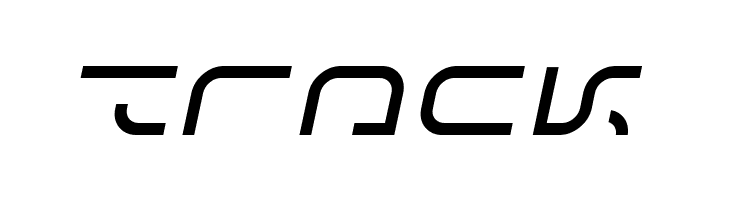
Watchtower Expanded Italic Font
- Font: Watchtower Expanded Italic
- Weight: Expanded Italic
( Fonts by Iconian Fonts - Daniel Zadorozny )
A futuristic, elongated font with a sleek, modern design.